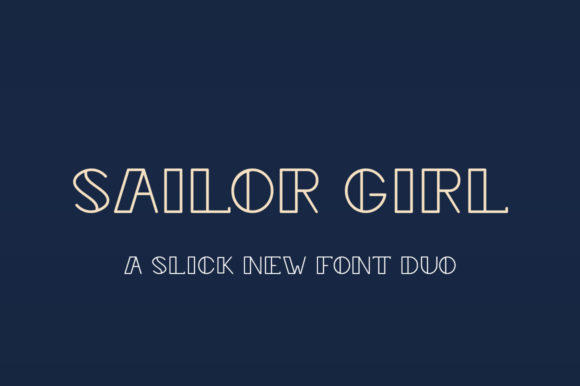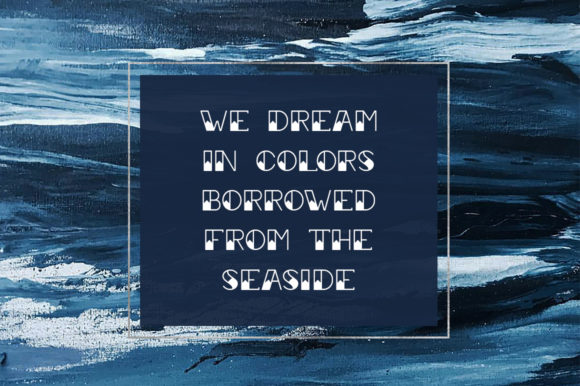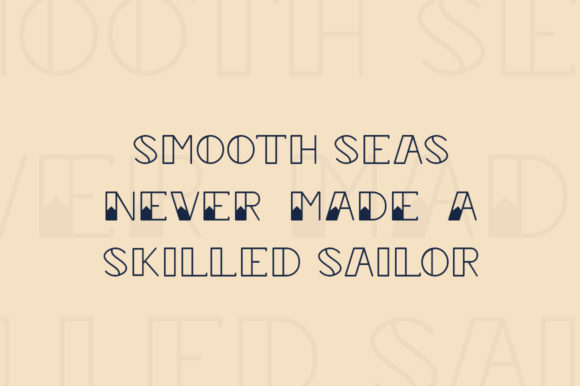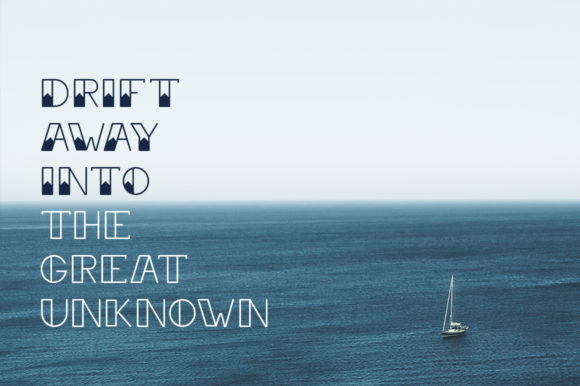
Sailor Girl Font: A Modern, Minimalist Sans Serif for Logo Design
About the Sailor Girl Font
Experience the unique personality of Sailor Girl Font, a font designed for impact. Sailor Girl is a modern sans serif font with a nautical theme. Get inspired by its simple elegance.
Sailor Girl’s clean lines and subtly playful curves make it ideal for branding projects needing a touch of modern nautical charm, particularly logos, short headlines, and packaging design for lifestyle or travel brands. It also works well on posters or social media graphics where readability at larger sizes is key. However, its limited character set and relatively thin strokes make it unsuitable for extended body text or UI elements requiring high legibility at smaller sizes.
Pairing Sailor Girl with a classic serif like Garamond for body copy creates a sophisticated contrast, balancing its modern simplicity with a touch of timeless elegance. Alternatively, a geometric sans-serif like Futura adds a sleek, contemporary feel, enhancing its minimalist energy. For a more playful approach, consider pairing it with a handwritten script font like Pacifico for secondary text elements.
The overall personality of Sailor Girl is friendly yet sophisticated, modern yet approachable. Its design evokes feelings of summer, sea breezes, and relaxed coastal living without being overly whimsical or childish.
Sailor Girl Font Usage Examples
Sailor Girl Font Example